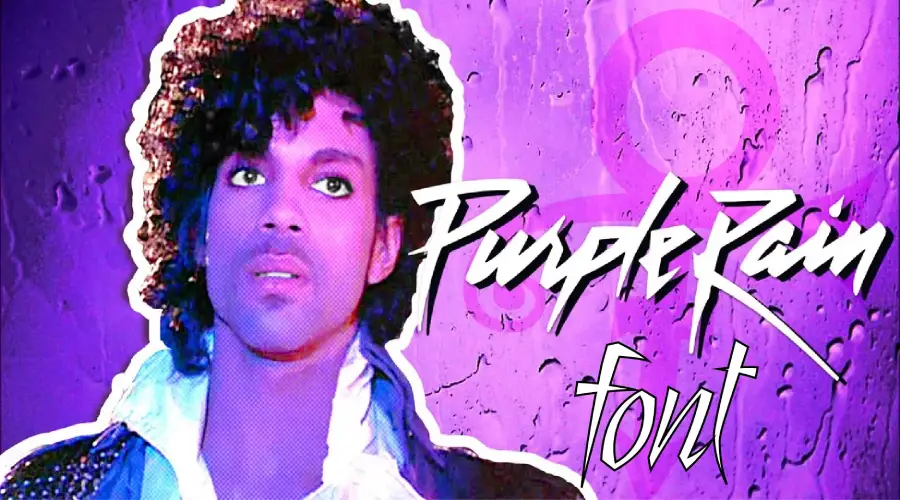
Purple Rain Font
Purple Rain font is used to create the Purple Rain movie logo. Purple Rain is a 1984 American rock musical drama film scored by and starring Prince in his acting debut. The film was directed by Albert Magnoli, who later became Prince’s manager, from a screenplay by Magnoli and William Blinn. The movie features the song “Purple Rain” by Prince, which won an Academy Award for Best Original Song Score.
Purple Rain Movie Logo vs Still Time Font Comparison Similarity
The font used for the film title in the poster is very similar to Still Time, a display font designed by Canadian-type designer Ray Larabie. It is free for personal use. You can also use the Beta font published by FontGet. It is free for both personal and commercial use.
Purple Rain Movie Logo vs Beta Font Comparison Similarity
Purple Rain is a cult classic film of all time. You can recreate the iconic logo using Still Time or Beta font. You can also check out the font in our Purple Rain font generator now.